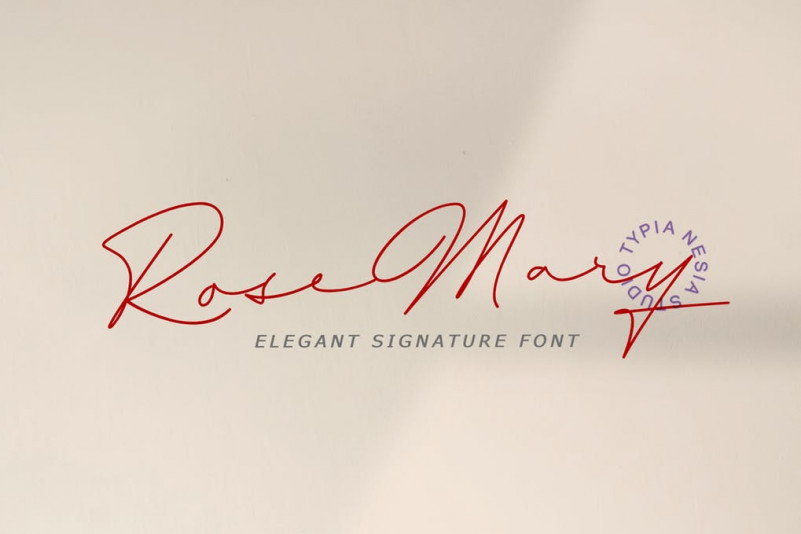
Rosemary Signature Font
Rosemary is a beautiful signature font that is such a pleasure to work with! The perfect flow and easy signature style works perfectly on invitations, blog headers, branding, art quote, book / cover Title, and so much more!
Rosemary signature font comes with upper and lowercase Standard Characters, Punctuation, Numerals. And other Glyphs variation of the OpenType features such as Standard Ligature, Stylistic Alternate and Stylistic Sets.